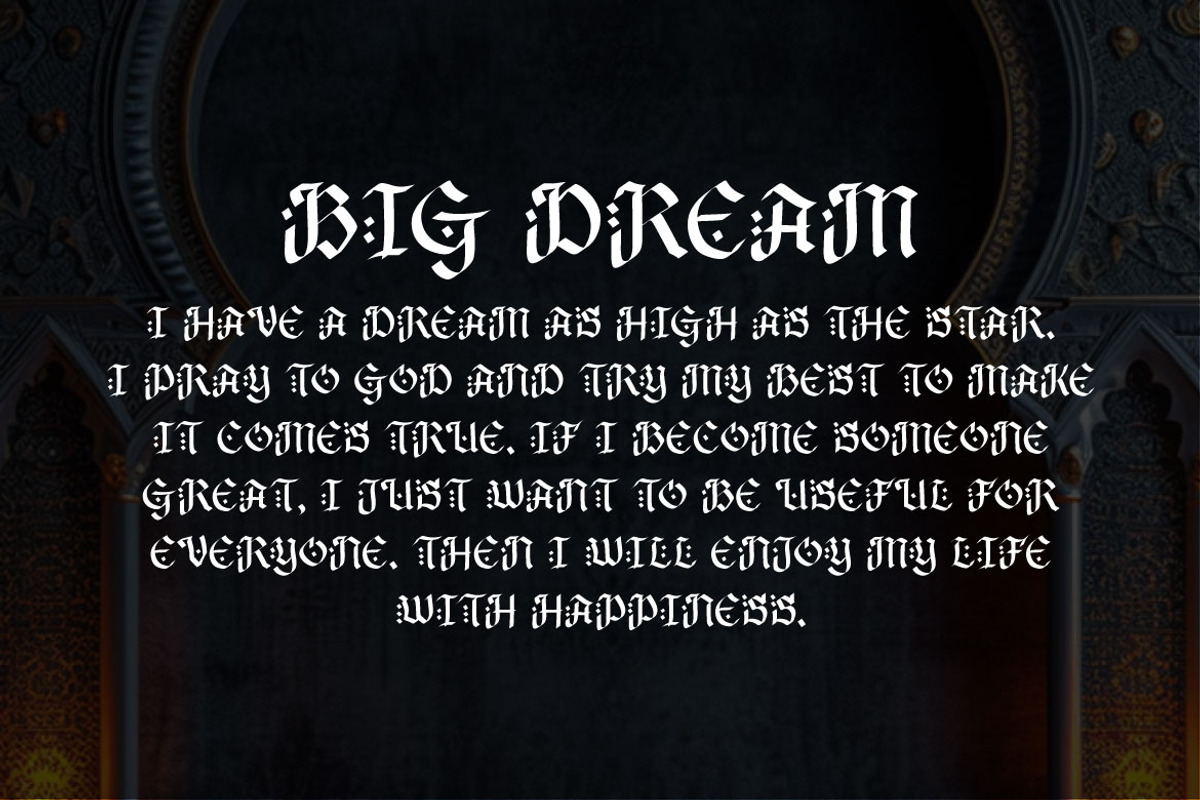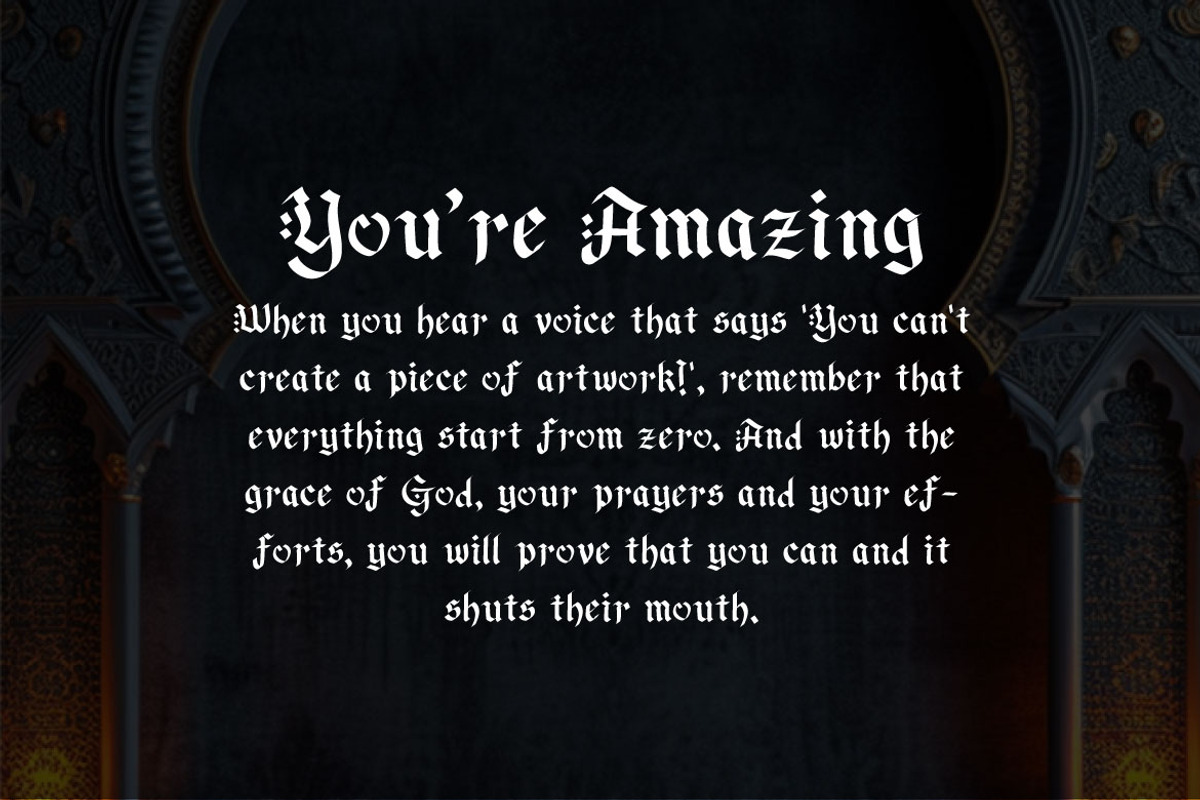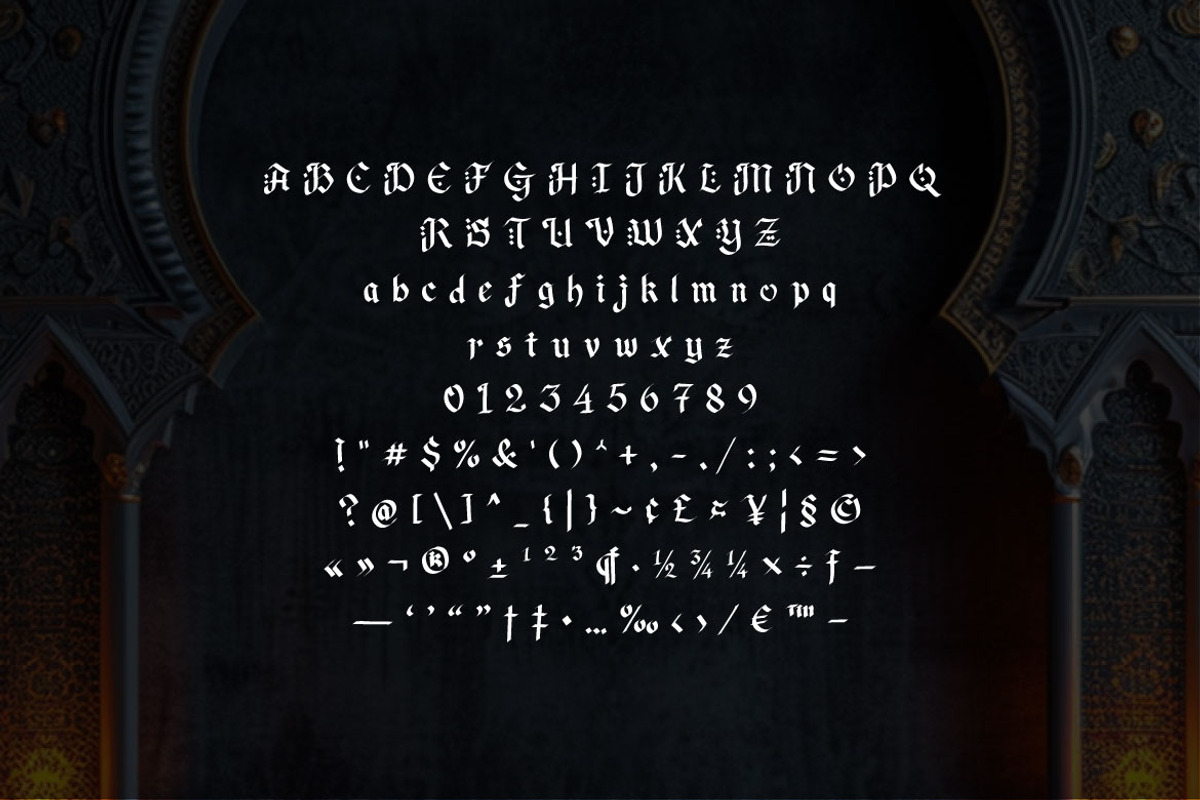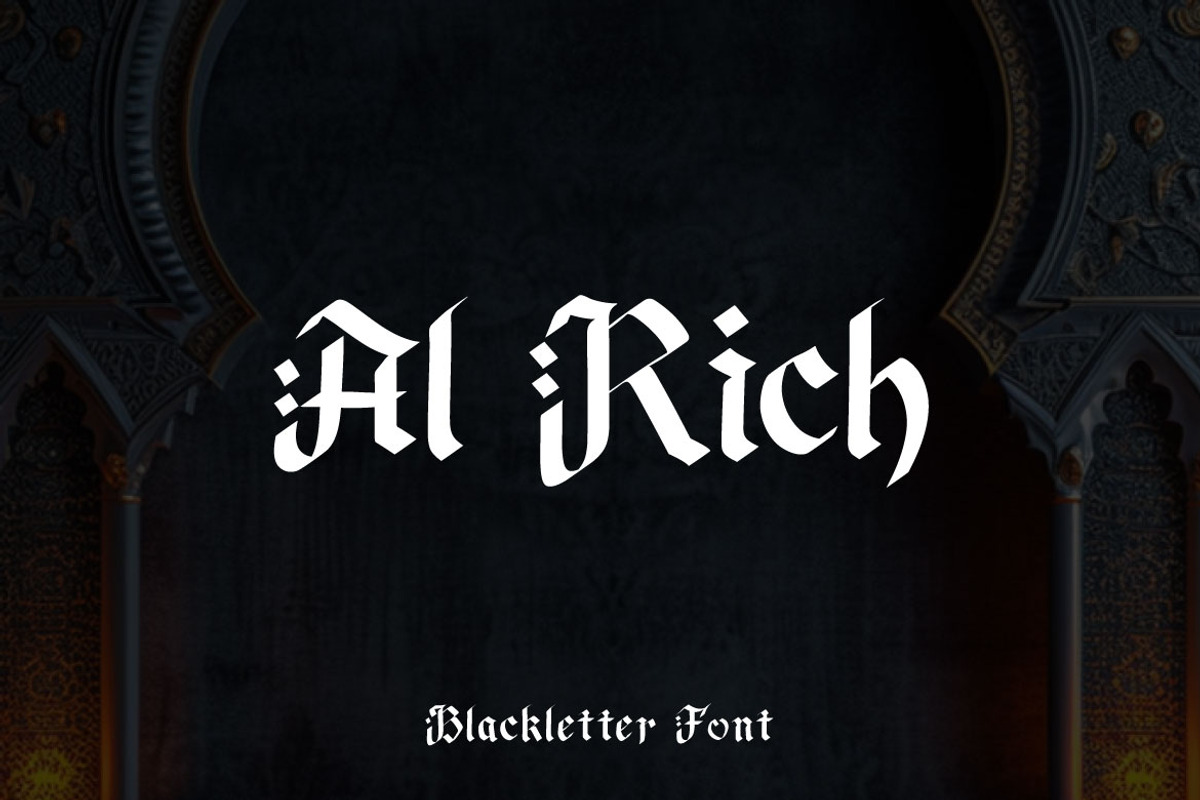
Al Rich - Decorative Blackletter
Introducing Al Rich - Decorative Blackletter Font - a font that resurrects the majesty of a bygone era into your modern design projects. With its roots deeply embedded in the history of Western calligraphy, Al Rich is not just a font; it's a journey back to the times when calligraphy and typography were the pinnacle of artistic expression. Al Rich transcends traditional design boundaries, offering endless possibilities for application. It's perfectly suited for:
- Branding and Identity
- Editorial Design
- Poster and Flyer Design
- Invitation Cards and Certificates
- Product Packaging
- Social Media Graphics
- Website Headings and Banners